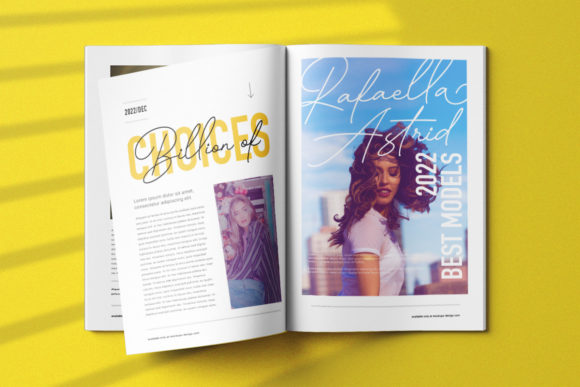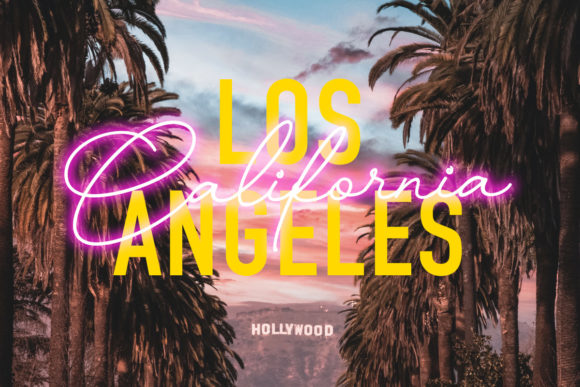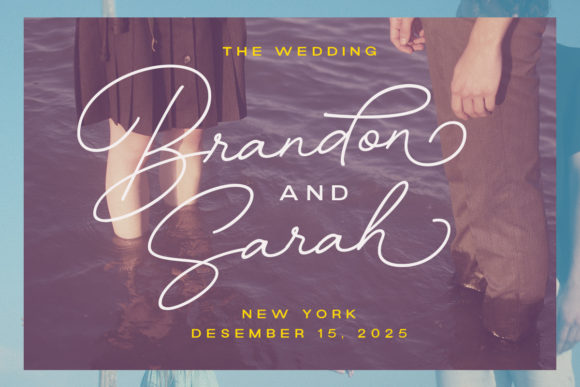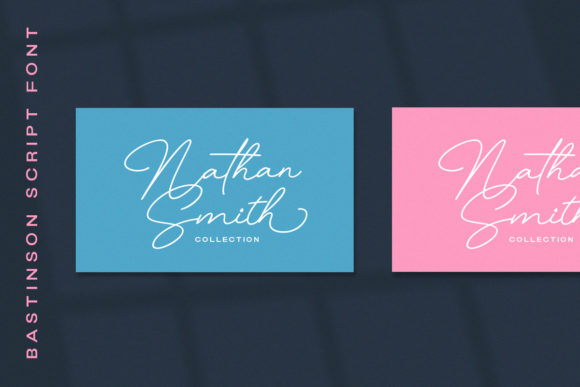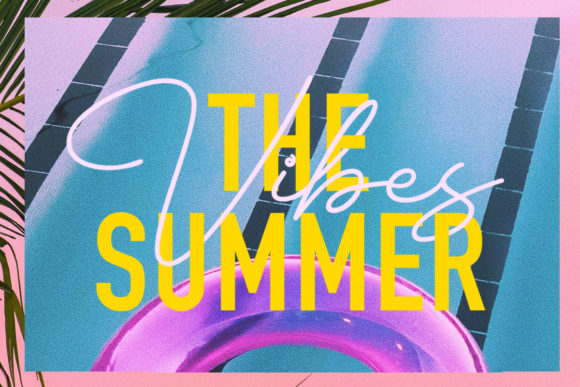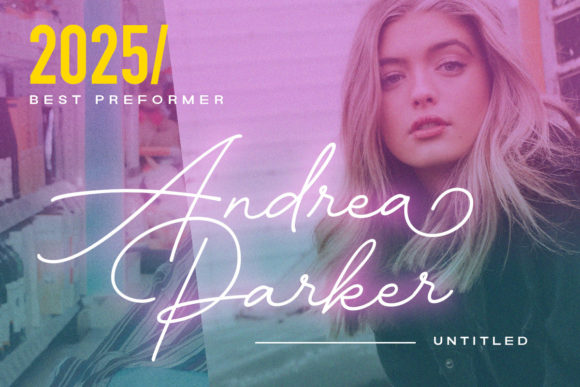
Bastinson – Monoline Script Font: The Perfect Touch for Your Next Design Project
You know that moment when you’re brainstorming ideas for your next design project and suddenly, you stumble upon the perfect font? For many of us, that moment is pure magic. It’s the spark that sets the entire project ablaze, guiding the direction and tone of our design. For me, that moment came when I discovered the enchanting Bastinson – Monoline Script Font.
This delicate script font is a true gem, featuring a retro vibe that’s sure to add a touch of whimsy to any project. With its thin lettering, Bastinson – Monoline Script Font is perfect for designers looking to create a sense of elegance and sophistication. Whether you’re designing a wedding invitation, a blog post, or a social media graphic, this font is sure to bring a joyful and romantic touch to each of your projects.
Bastinson Monoline Script Font Key Features
- Font style: Script, Monoline
- Unique characteristics:
- Monoline script design with a fluid, connected feel
- Highly legible and suitable for both body text and display use
- Perfect for creative projects, branding, and editorial design
Bastinson – Monoline Script Font Review
I recently had the chance to work with Bastinson – Monoline Script Font, and overall, I’m quite impressed. ✨ The elegant, hand-drawn style of this font is perfect for any project that needs a touch of sophistication. ✨ The monoline design gives it a unique look that’s both modern and timeless.
Here are some of the things I love about Bastinson:
- Unique monoline design that adds a touch of personality to any project
- Elegant, hand-drawn style that’s perfect for luxury brands or high-end projects
- Extensive character set that includes all the necessary characters and symbols
- Works well for both digital and print applications
However, there are a few limitations to keep in mind:
- May not be the best choice for projects that require a bold or sans-serif font
- Can be a bit difficult to read at very small font sizes
- May not be compatible with all operating systems or software
Overall, I think Bastinson – Monoline Script Font is a great addition to any designer’s toolkit. It’s versatile, elegant, and perfect for projects that need a touch of sophistication.
Bastinson – Monoline Script Font is ideal for:
- Branding and logo design
- Editorial and publishing projects